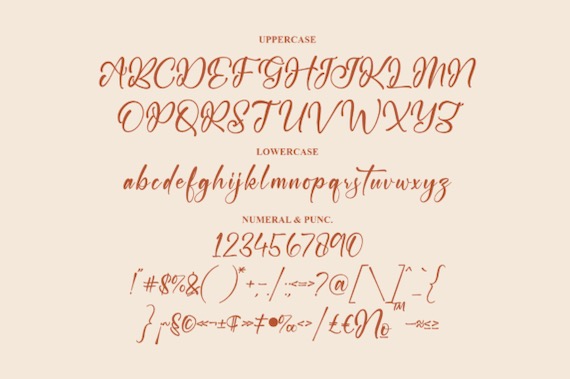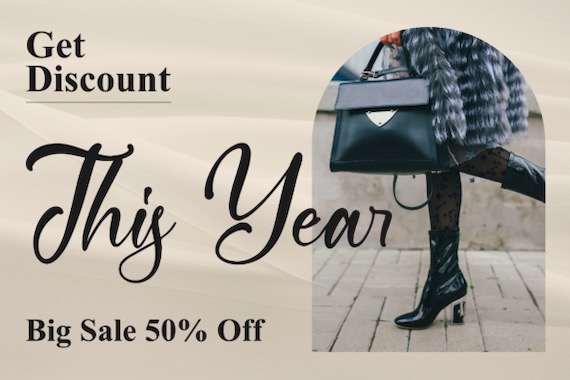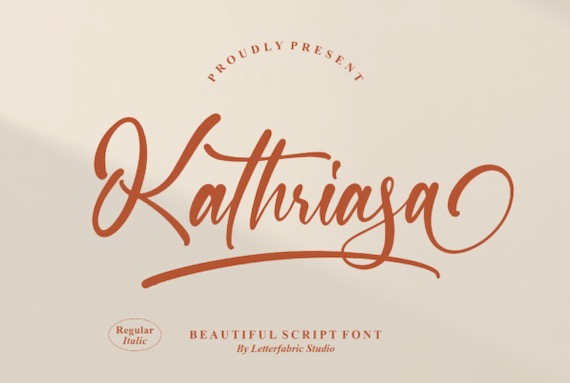
Kathriasa is a classy modern handwritten script font that was created and shared by Letterfabric. This handwritten typeface is designed for many types of projects like packaging products, invitation cards, flyers, mockups, event posters, and anything else that requires high-quality vibes. It has a beautiful and balanced character, that fits well with the large design pool. This font is PUA encoded which means you can access all of the glyphs and swashes with ease.
Kathriasa Handwritten Script Font